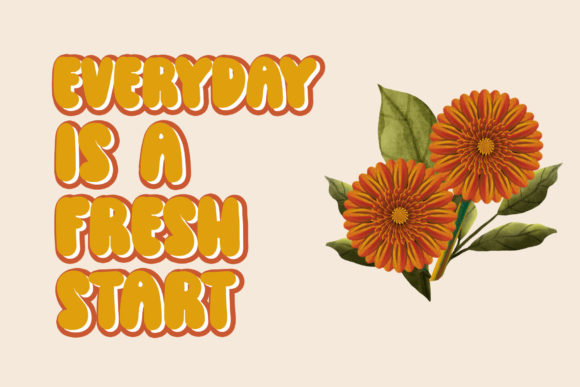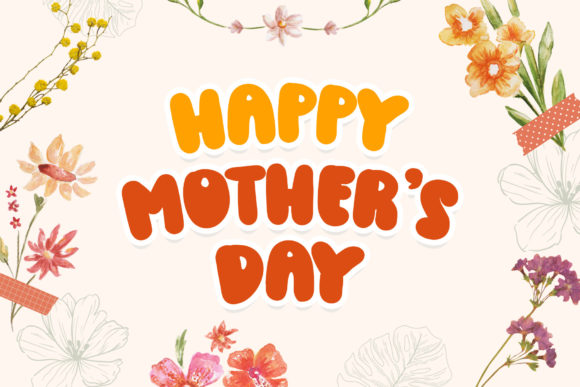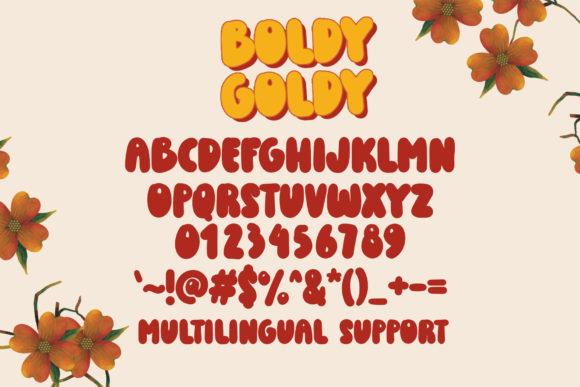
Introducing Boldy Goldy Font: The Friendly and Versatile Display Font
Are you tired of using the same old fonts for your digital designs, crafts, and presentations? Look no further than Boldy Goldy Font, a childish and easy-to-read display font that’s sure to bring a smile to your face. With its impeccable friendliness and versatility, Boldy Goldy is the perfect addition to your font collection.
What is Boldy Goldy Font?
Boldy Goldy Font is a display font designed to convey a sense of friendliness and approachability. Its childish and playful style makes it perfect for a variety of projects, from crafts and digital designs to presentations and greeting cards. The font’s bold and golden appearance gives it a luxurious feel, making it ideal for projects that require a touch of elegance.
Characteristics of Boldy Goldy Font
- Childish and playful style: Boldy Goldy Font has a youthful and energetic vibe that’s sure to appeal to designers and crafters of all ages.
- Easy-to-read: The font’s clear and simple design makes it easy to read, even at small sizes.
- Versatile: Boldy Goldy Font can be used for a wide range of projects, from digital designs and presentations to crafts and greeting cards.
- Impeccable friendliness: The font’s friendly and approachable style makes it perfect for projects that require a personal touch.
Uses of Boldy Goldy Font
Boldy Goldy Font is a versatile font that can be used for a variety of projects, including:
- Crafts: Use Boldy Goldy Font to add a personal touch to your craft projects, such as scrapbooking, card making, and DIY gifts.
- Digital design: Add a playful and friendly touch to your digital designs, such as social media graphics, blog posts, and website headers.
- Presentations: Use Boldy Goldy Font to add a touch of elegance and sophistication to your presentations, such as business presentations, educational slides, and conference talks.
- Greeting cards: Create personalized and friendly greeting cards for special occasions, such as birthdays, holidays, and weddings.
Why Choose Boldy Goldy Font?
With so many fonts to choose from, why should you choose Boldy Goldy Font? Here are just a few reasons:
- Unique and eye-catching: Boldy Goldy Font is a unique and eye-catching font that’s sure to stand out from the crowd.
- High-quality design: Boldy Goldy Font is designed to high-quality standards, ensuring that it looks great in any project.
- Versatile: The font can be used for a wide range of projects, making it a great addition to your font collection.
In conclusion, Boldy Goldy Font is a friendly and versatile display font that’s perfect for designers and crafters of all levels. With its childish and playful style, easy-to-read design, and impeccable friendliness, Boldy Goldy Font is sure to become your go-to font for all your projects. Whether you’re working on crafts, digital designs, presentations, or greeting cards, Boldy Goldy Font is the perfect choice.